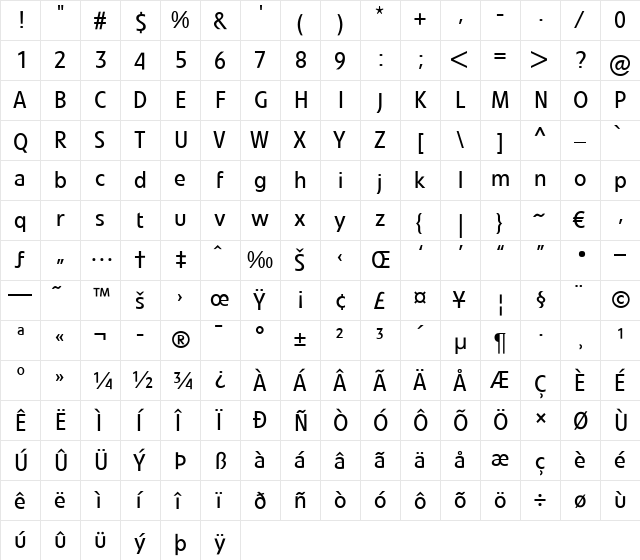
LTVeto Regular Regular
| Designer | Marco Ganz |
Design Context for LTVeto Regular Typeface
LTVeto Regular takes a measured approach to typography — its balanced proportions and neutral character make it a reliable workhorse for both digital and print work.